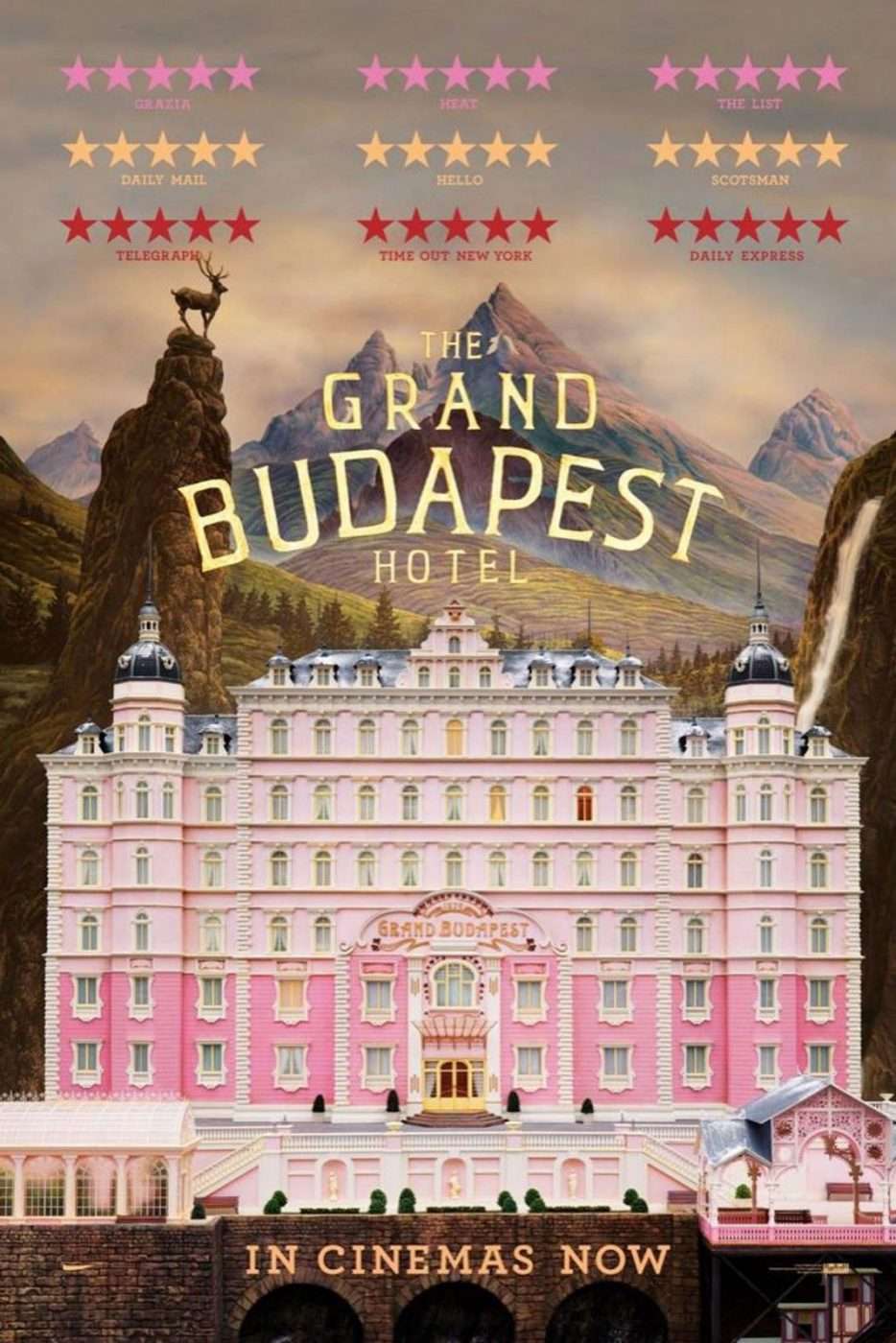
Grand Budapest Hotel Font. Web the grand budapest hotel poster and props 2013. While anderson has made extensive, and.
Web the grand budapest hotel poster and props 2013. While anderson has made extensive, and. Wes anderson's the grand budapest hotel is remarkable for numberous reasons, but the use of typefaces may not have been largely discussed yet. Web a vintage font with a classical feel, carved display serif font kastel voire would be perfect for recreating the grand budapest hotel aesthetic. It is a modern, functional and highly geometric font, inspired by the visual elements of the bauhaus, although not directly associated.
Web the grand budapest hotel poster and props 2013. While anderson has made extensive, and. Web a vintage font with a classical feel, carved display serif font kastel voire would be perfect for recreating the grand budapest hotel aesthetic. Wes anderson's the grand budapest hotel is remarkable for numberous reasons, but the use of typefaces may not have been largely discussed yet. Web the grand budapest hotel poster and props 2013. It is a modern, functional and highly geometric font, inspired by the visual elements of the bauhaus, although not directly associated.